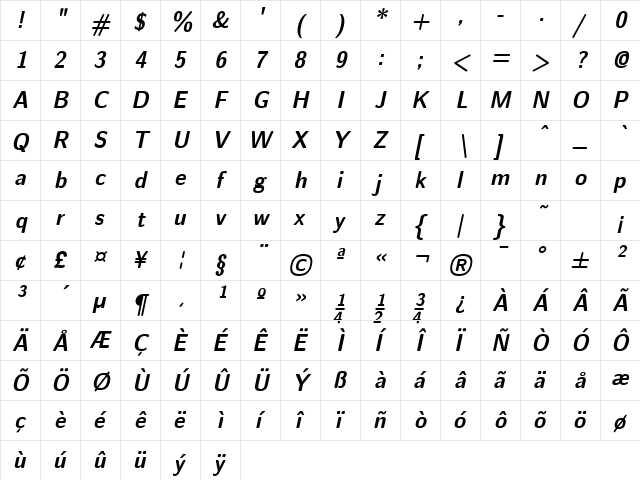
Emil Bold Oblique
Design Context for Emil Typeface
Emil is a composed and adaptable typeface that performs quietly and consistently across a wide range of design contexts. The dynamic lean of this cut emphasises speed and emphasis in any layout. Its bold stroke weight gives it real presence on the page.
Pro Tip: Use Emil for emphasis, pull quotes, and subheadings where its slanted energy can add rhythm to the layout.